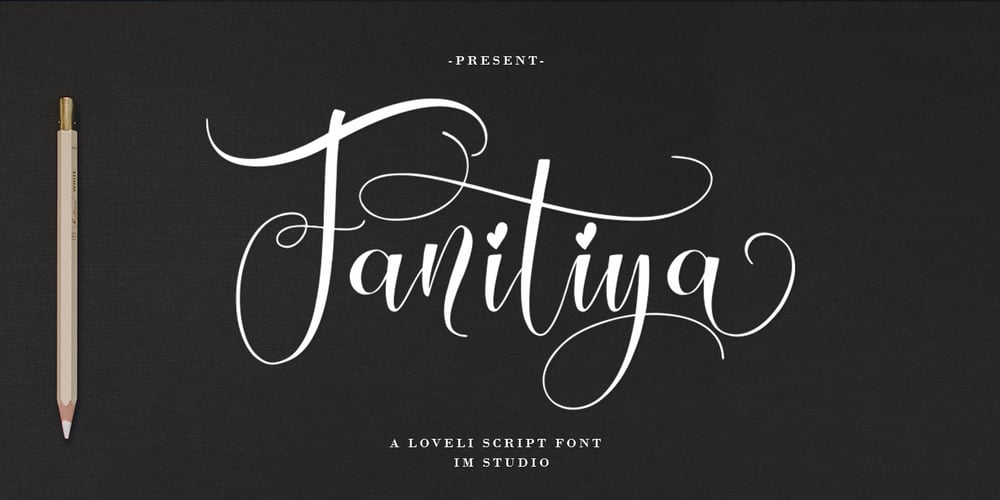
Fanitiya Font Family was designed by Ikhsan Maulana and published by IM Studio. Fanitiya contains 1 styles and family package options. Fanitiya script – new, fresh, funny, interesting, cute calligraphy font with relatable heart. Great for greeting cards, branding materials, business cards, quotes, posters and more!Fanitiya script – includes many alternative characters. Coded with Unicode PUA, which allows full access to all additional characters without having any special design software. Mac users can use Font Book. Windows users can use the Character Map to view and copy any of the additional characters to paste into your favorite text editor. For people who have opentype-capable software: Alternatives can be accessed by activating the “Alternative Styles” and “Ligatures” buttons on Photoshop’s Character panel, or via any software with a glyph panel, eg. Adobe Illustrator, Photoshop CC, Inkscape.Thank you for purchasing!